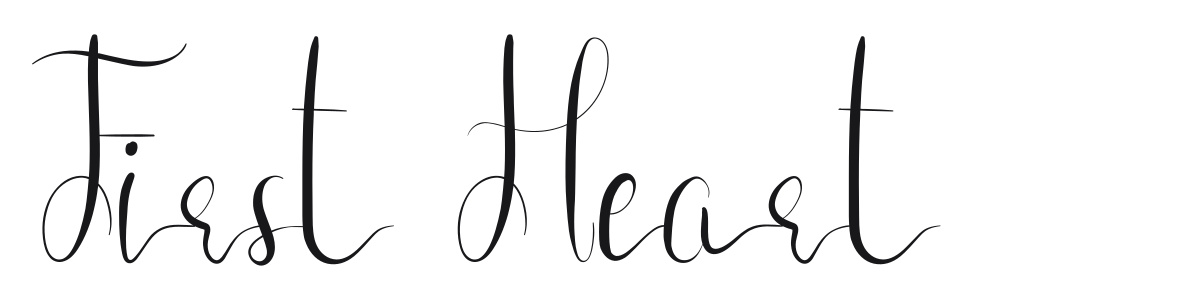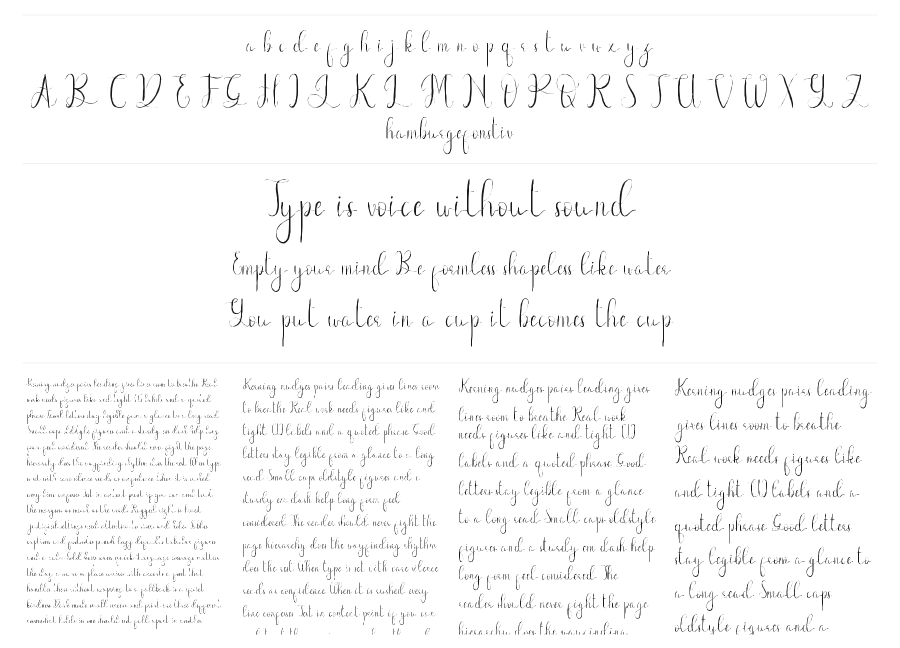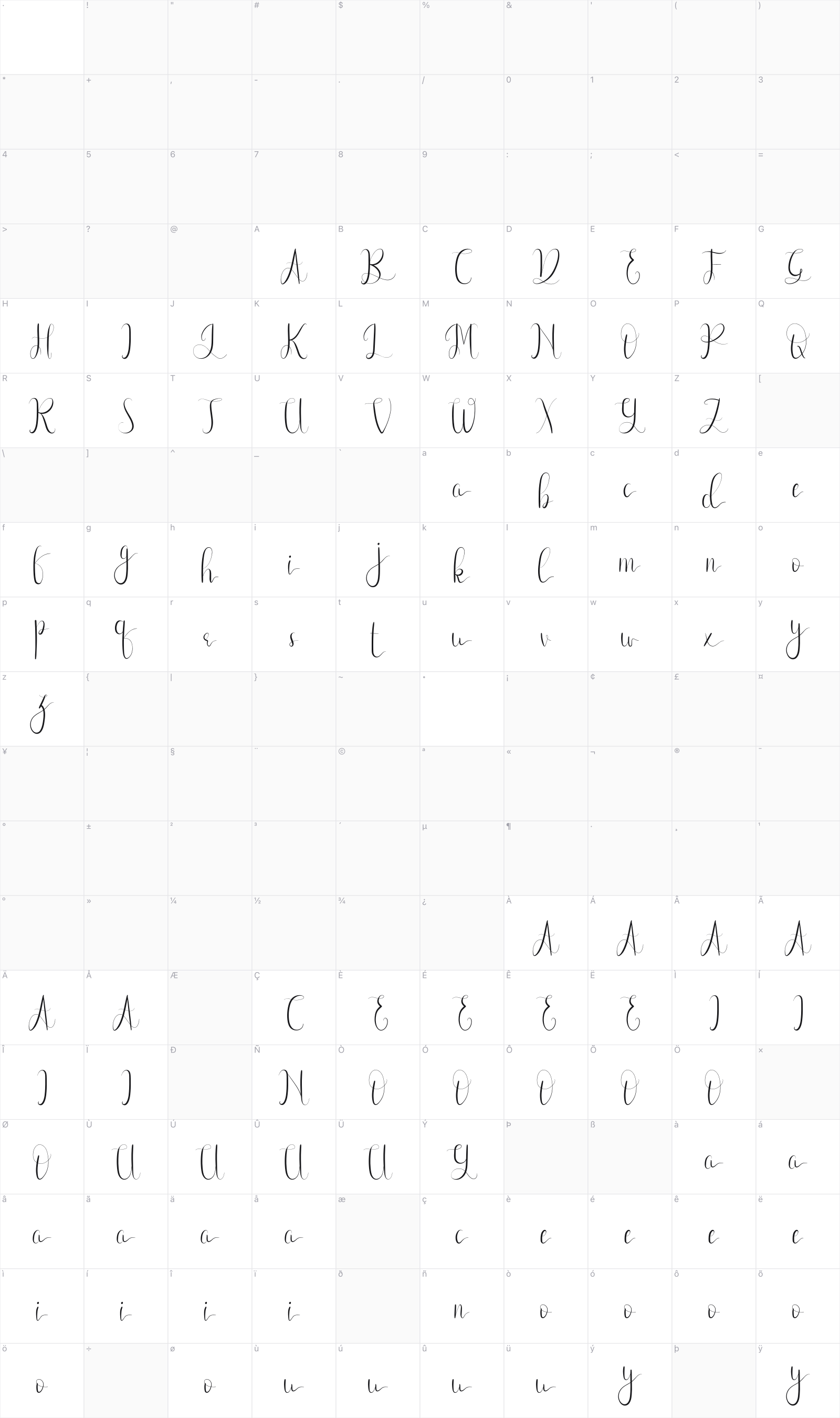
First Heart
First Heart is a flowing modern calligraphy script with fine hairline upstrokes and soft, broader downstrokes that give it a light, romantic quality. The long looping ascenders and descenders intertwine across words, adding a sense of motion and handcrafted charm. It suits wedding stationery, branding, and any project that calls for an intimate, handwritten warmth.